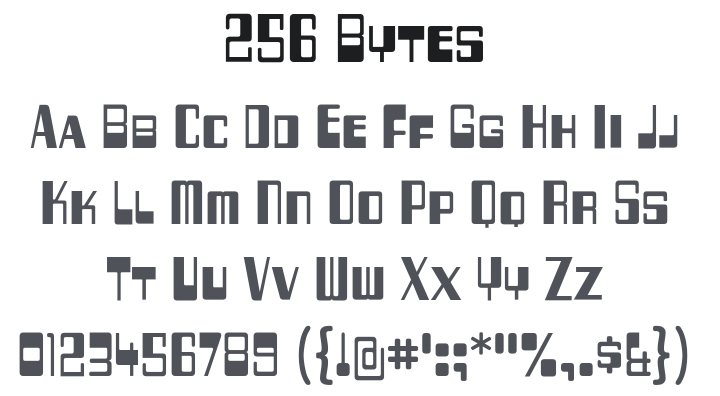
256 Bytes Font
About 256 Bytes
256 Bytes is a bold, geometric sci-fi typeface inspired by the logotype of the MITS Altair 8800 — one of the first personal computers. Its unusual thick-thin stroke contrasts echo 1960s MICR type styles like Data 70 and Westminster, giving it a retro-digital authority. Perfect for tech branding, sci-fi game titles, futuristic posters, and anything needing a voice of vintage computational power.